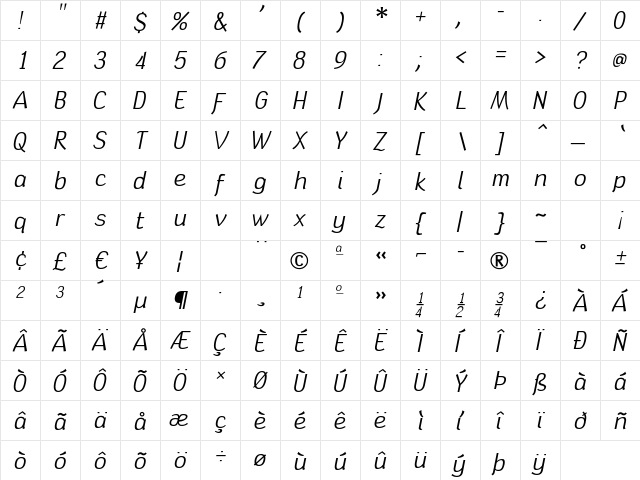
Tin Birdhouse Italic
| Foundry | Objets Dart |
| Designer | Darren Rigby |
Design Context for Tin Birdhouse Typeface
Tin Birdhouse offers clean, dependable letterforms without strong stylistic allegiance, making it a practical choice for designers who need flexibility. The dynamic lean of this cut emphasises speed and emphasis in any layout.